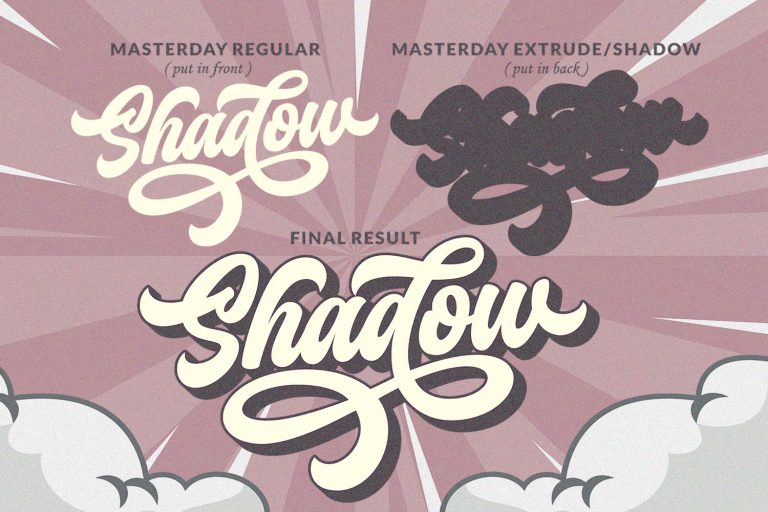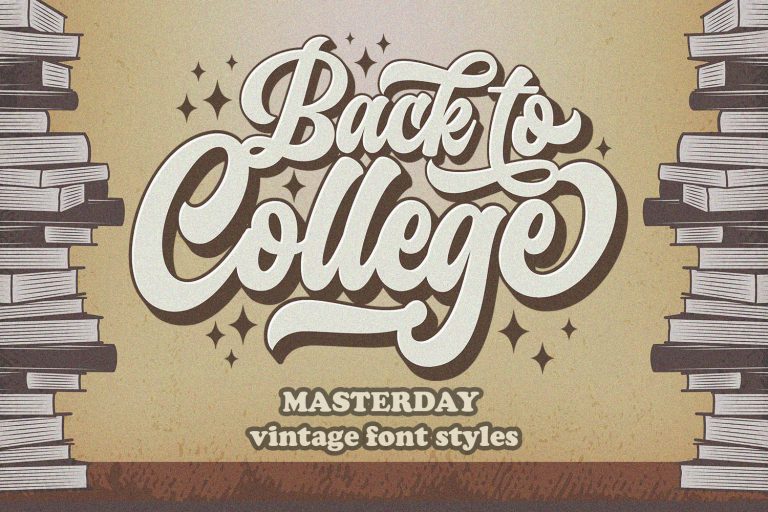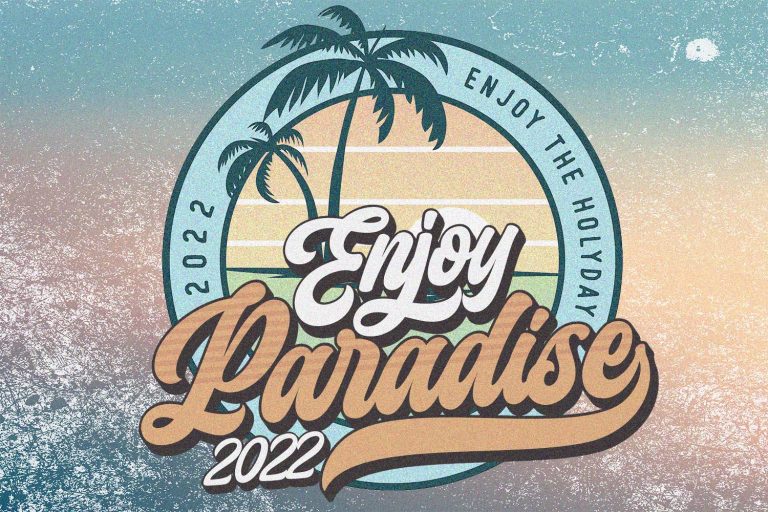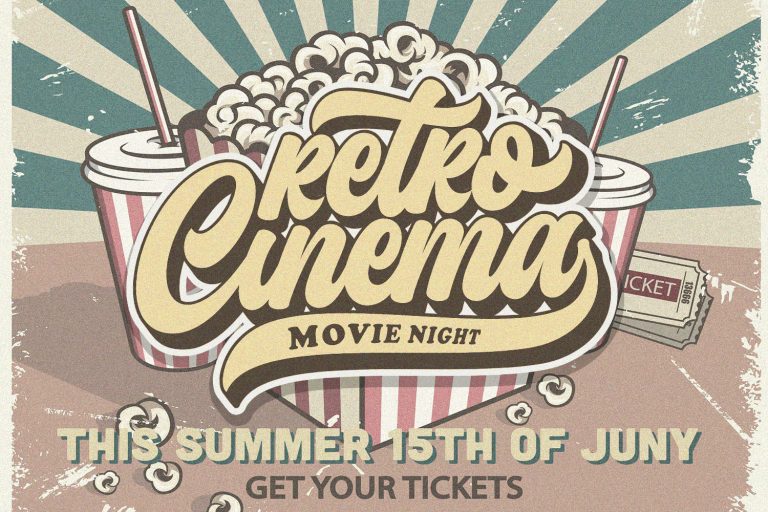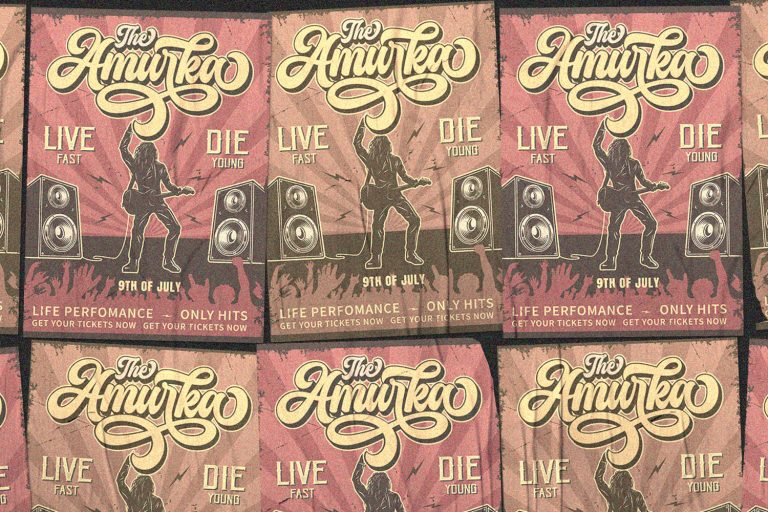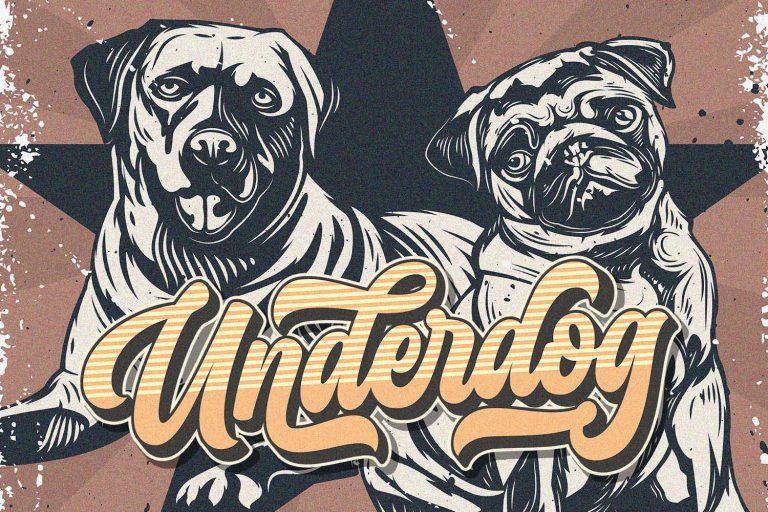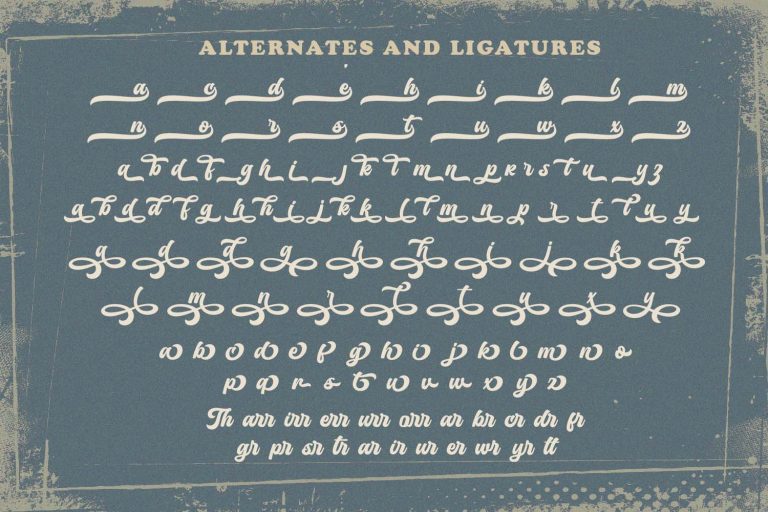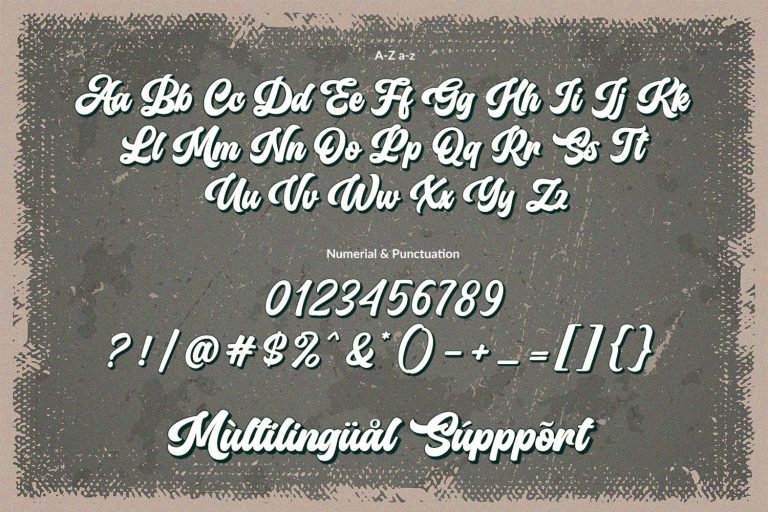
Masterday Font is an urban retro font with the style like a logotype lettering.
was created to help you designing logotype or lettering style for your Brand or your clients.
it has an extensive lingual support, covering European and Asian Latin scripts.
The font contains all characters you’ll ever need, including all punctuation and numbers.
Multilingual Support
Alternates,
ligature,
Extrude/Shadow